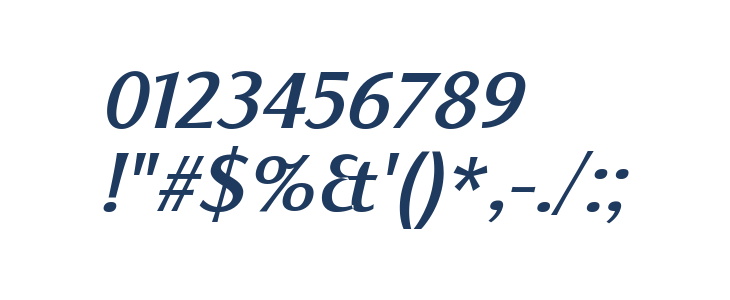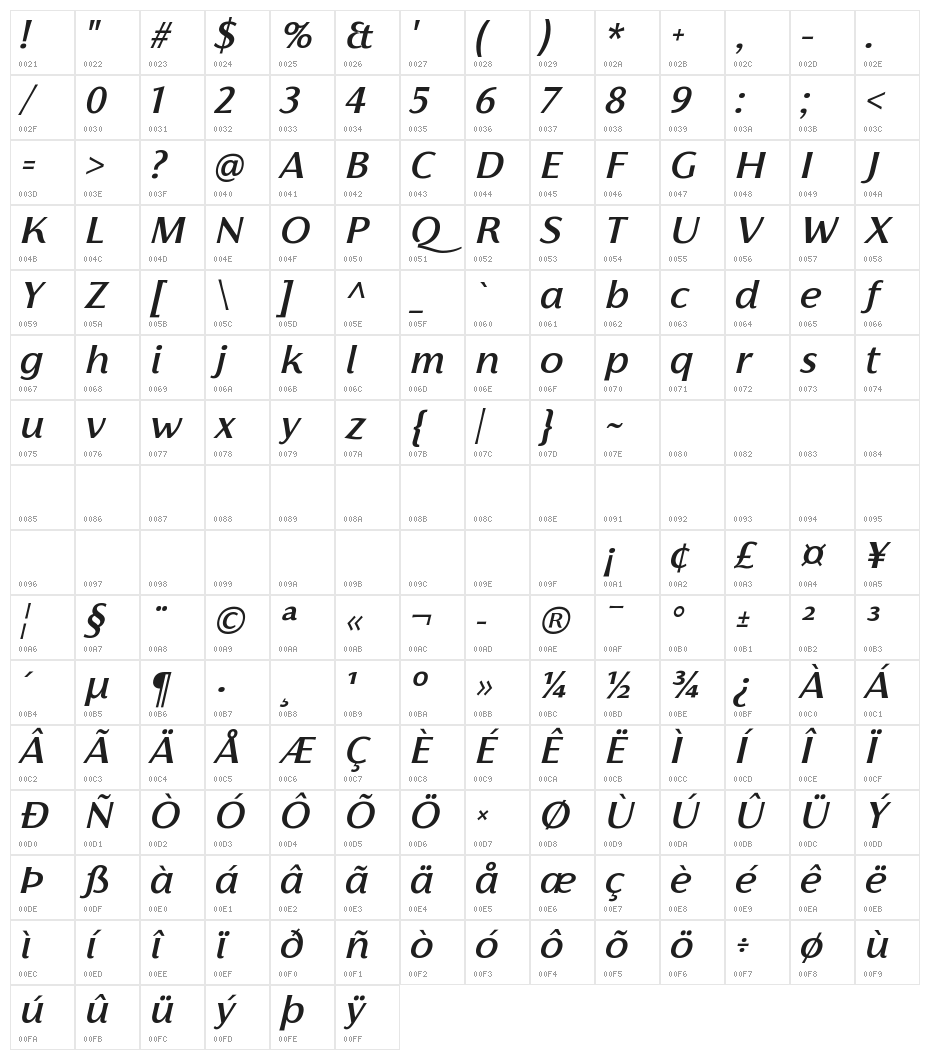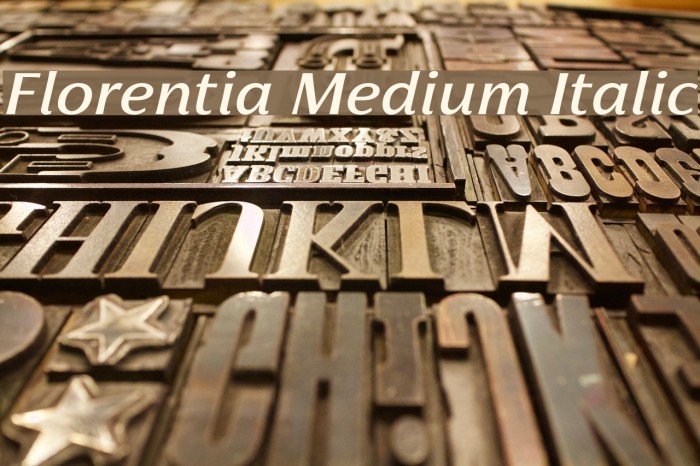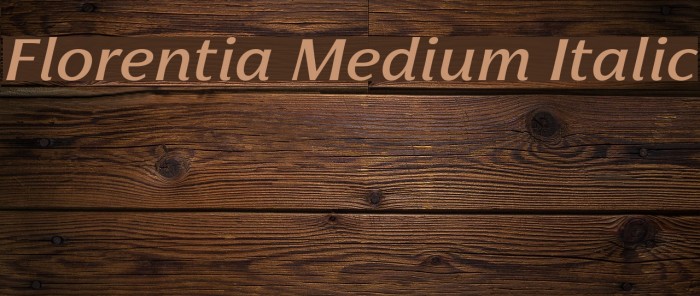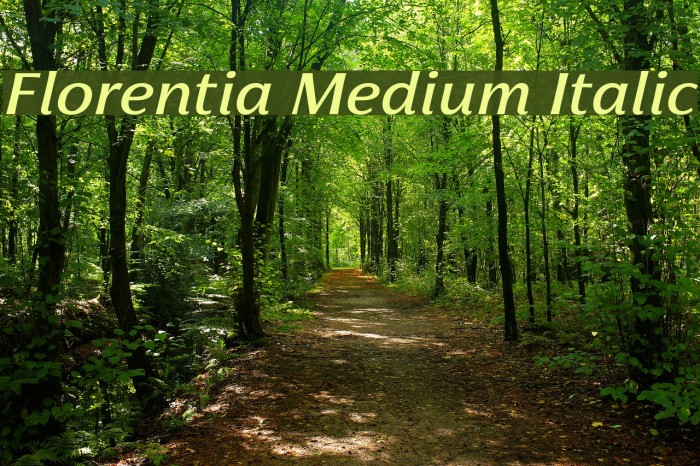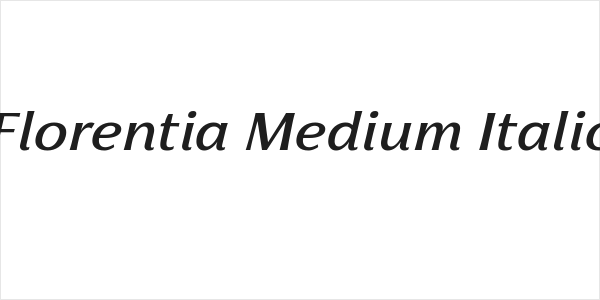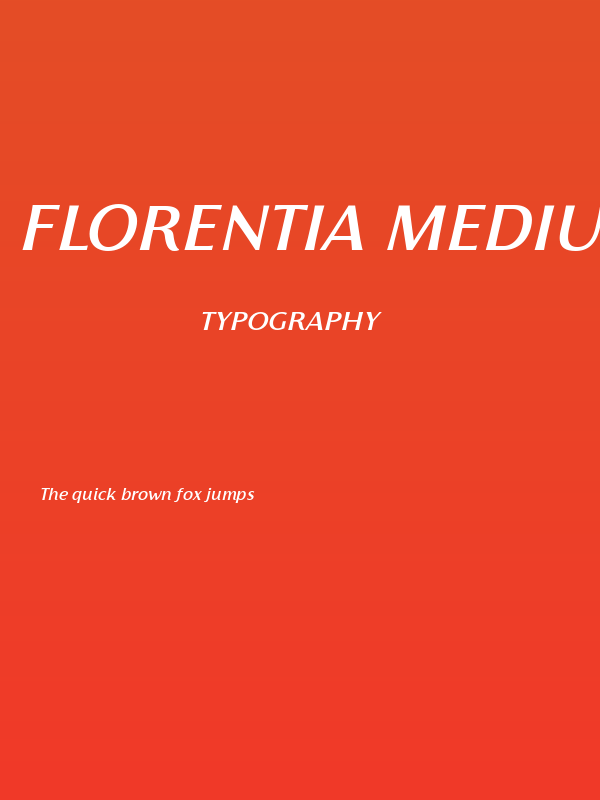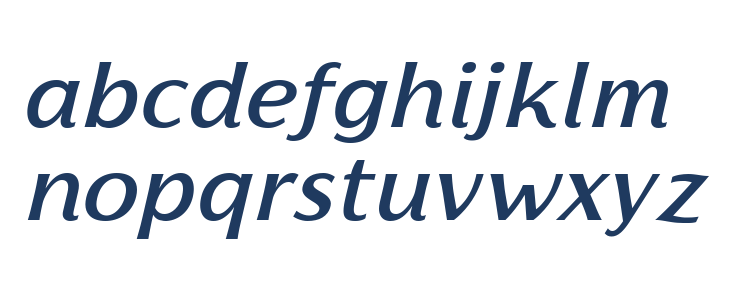
Florentia Medium Italic Font
Florentia Medium Italic Description
This font features a sophisticated and elegant italic style, characterized by smooth, flowing curves and a moderate slant. The letterforms are well-balanced, with a medium weight that provides a sense of stability and readability. The uppercase letters exhibit a classic design with slight flourishes, while the lowercase letters maintain a consistent and harmonious appearance. Numerals are clear and distinct, making them easily legible. The special characters are thoughtfully designed to match the overall aesthetic, ensuring a cohesive look across all text elements. This font's refined style makes it suitable for a variety of applications where elegance and readability are paramount.
| Proposed Projects | Ideal for wedding invitations, luxury branding, editorial design, and elegant signage. |